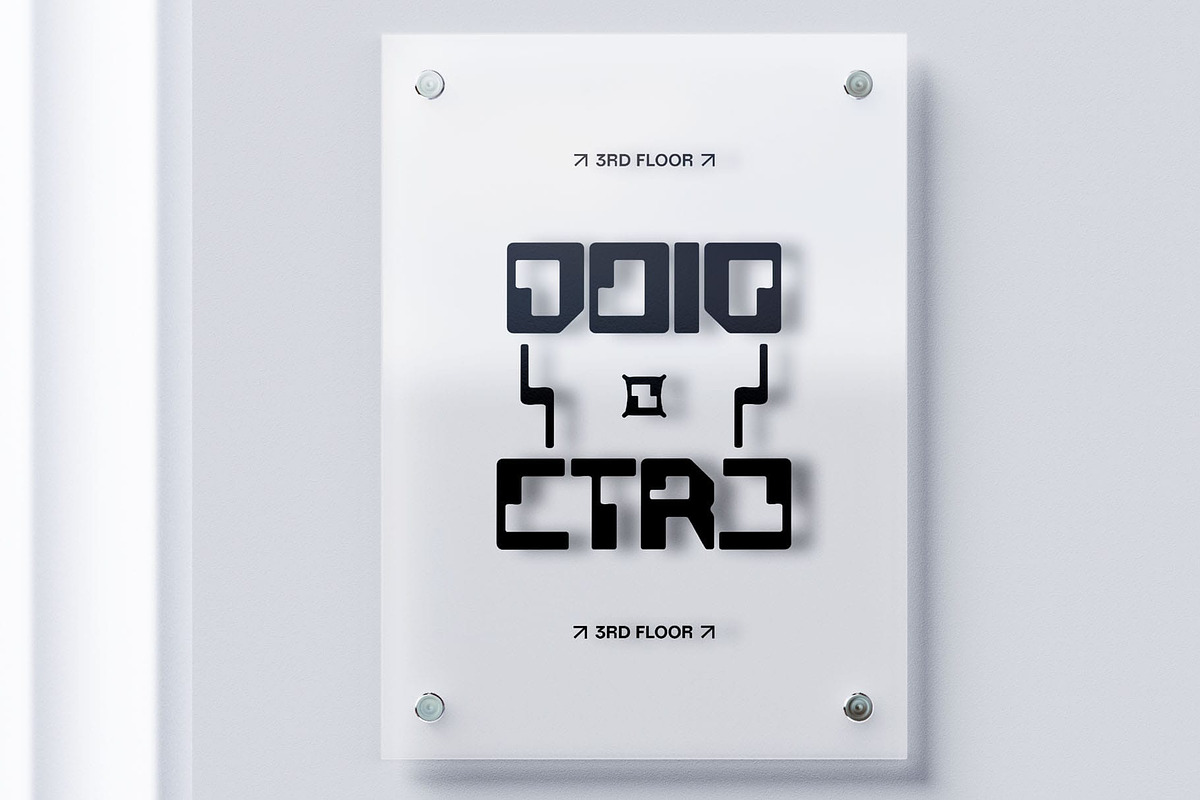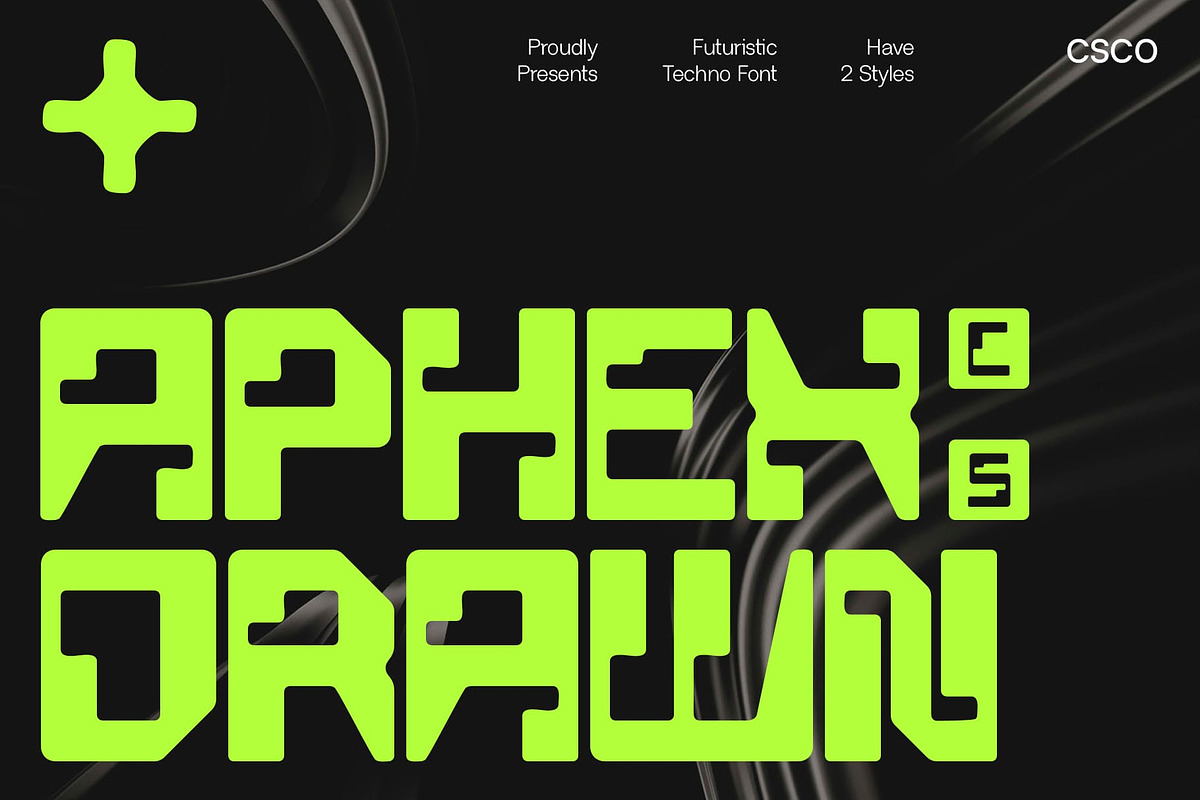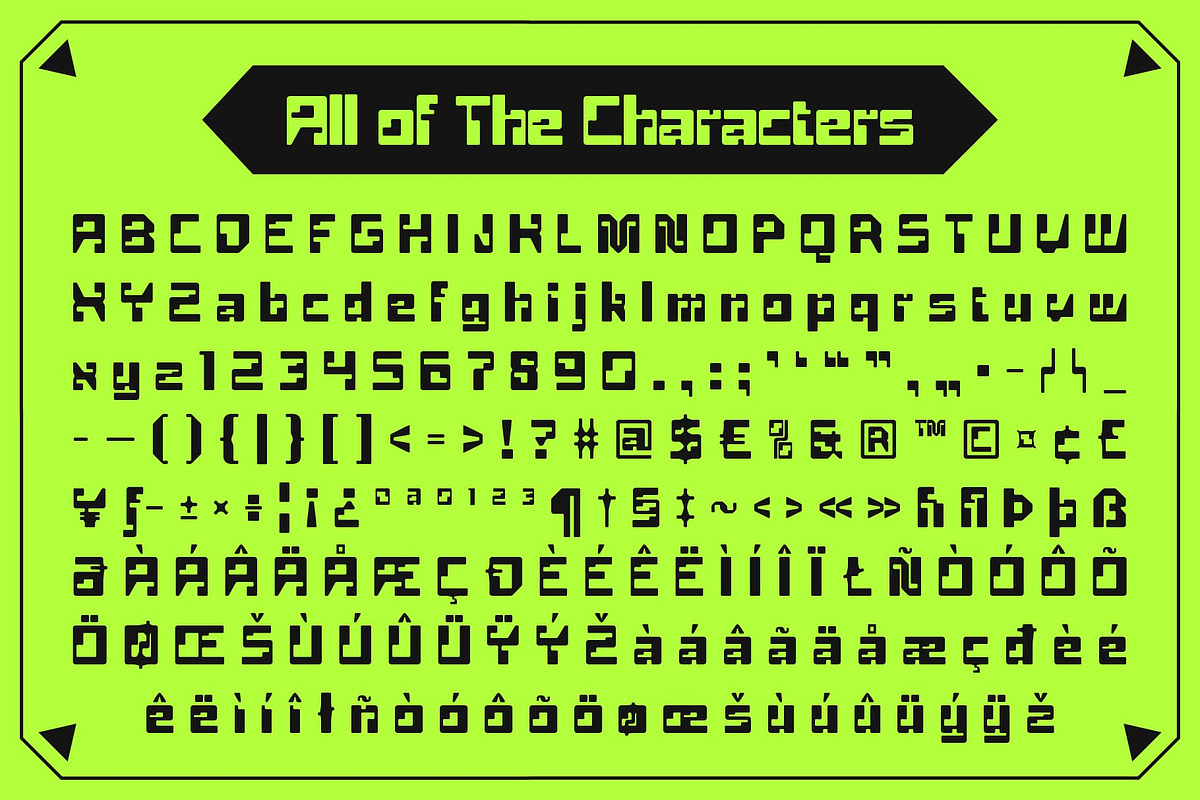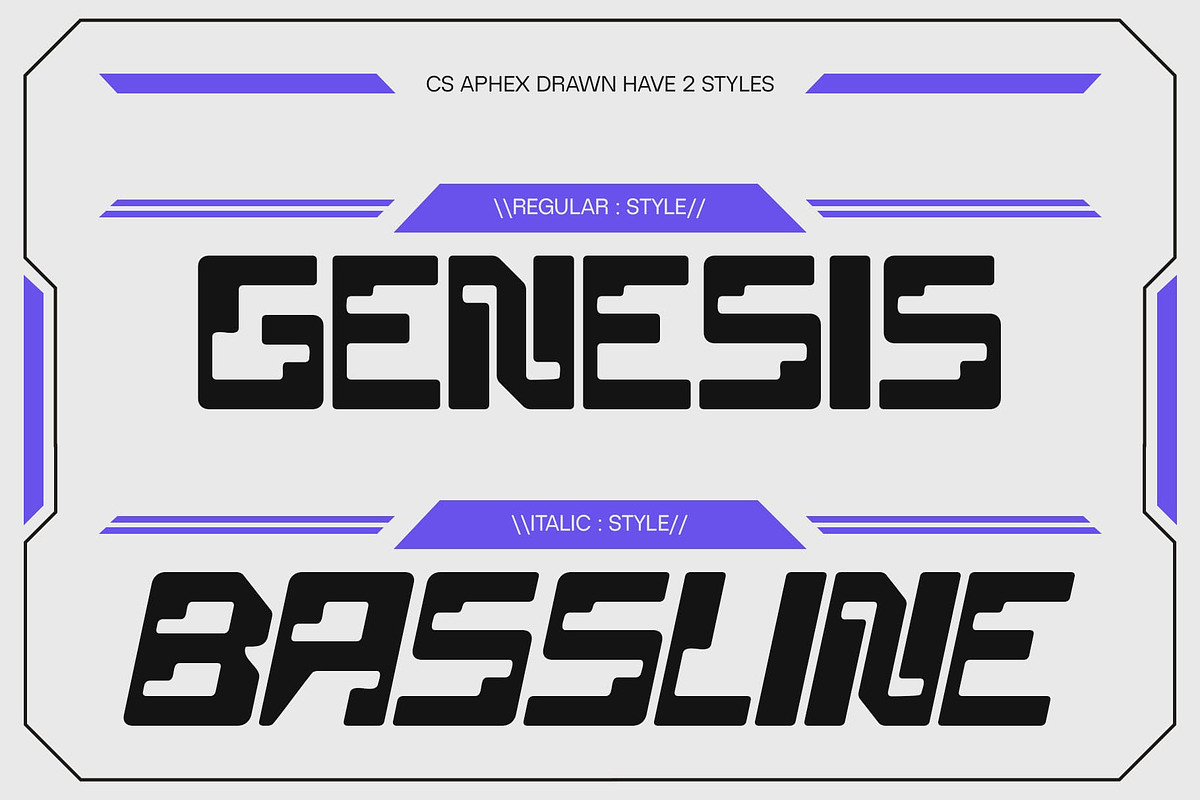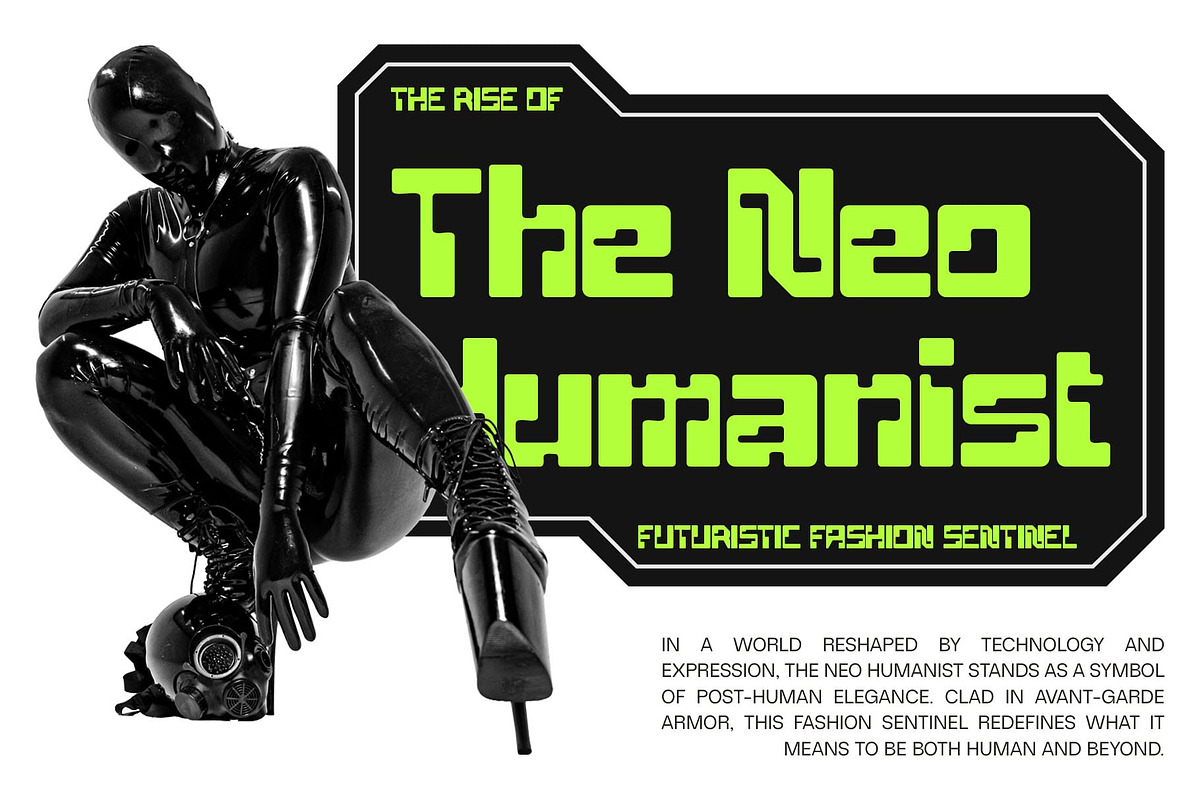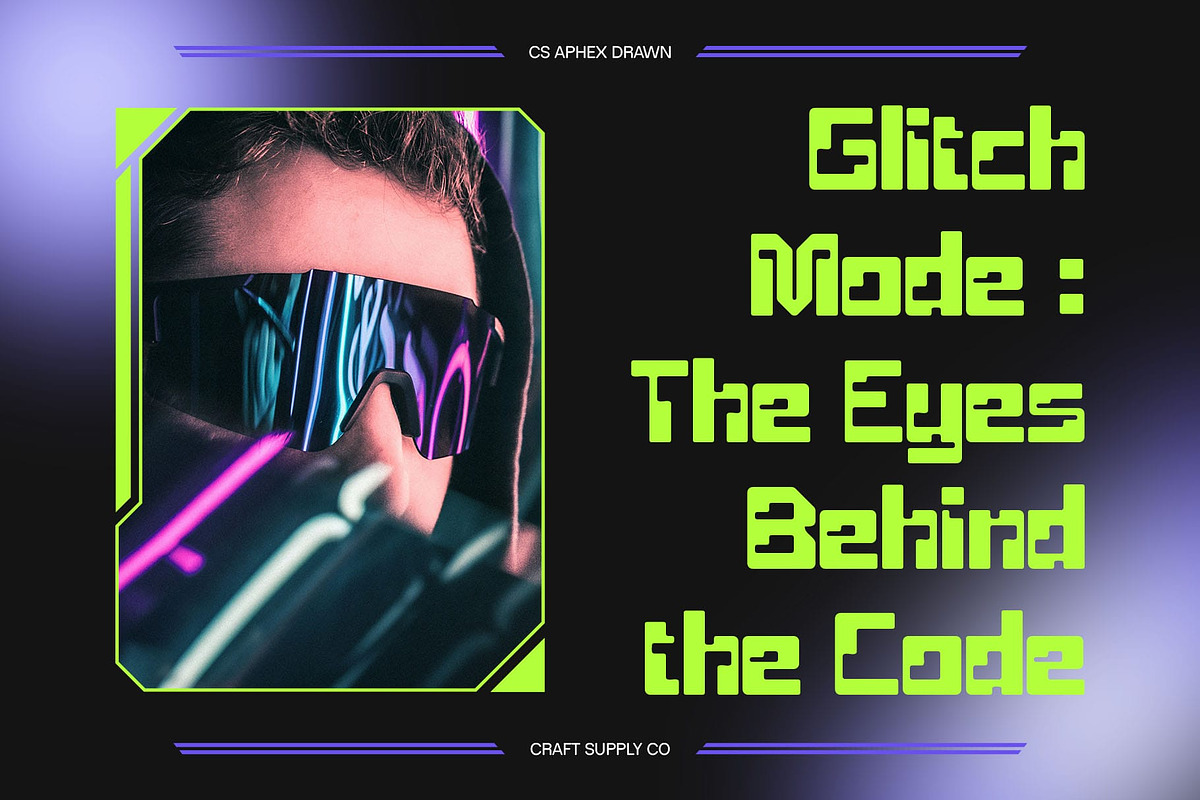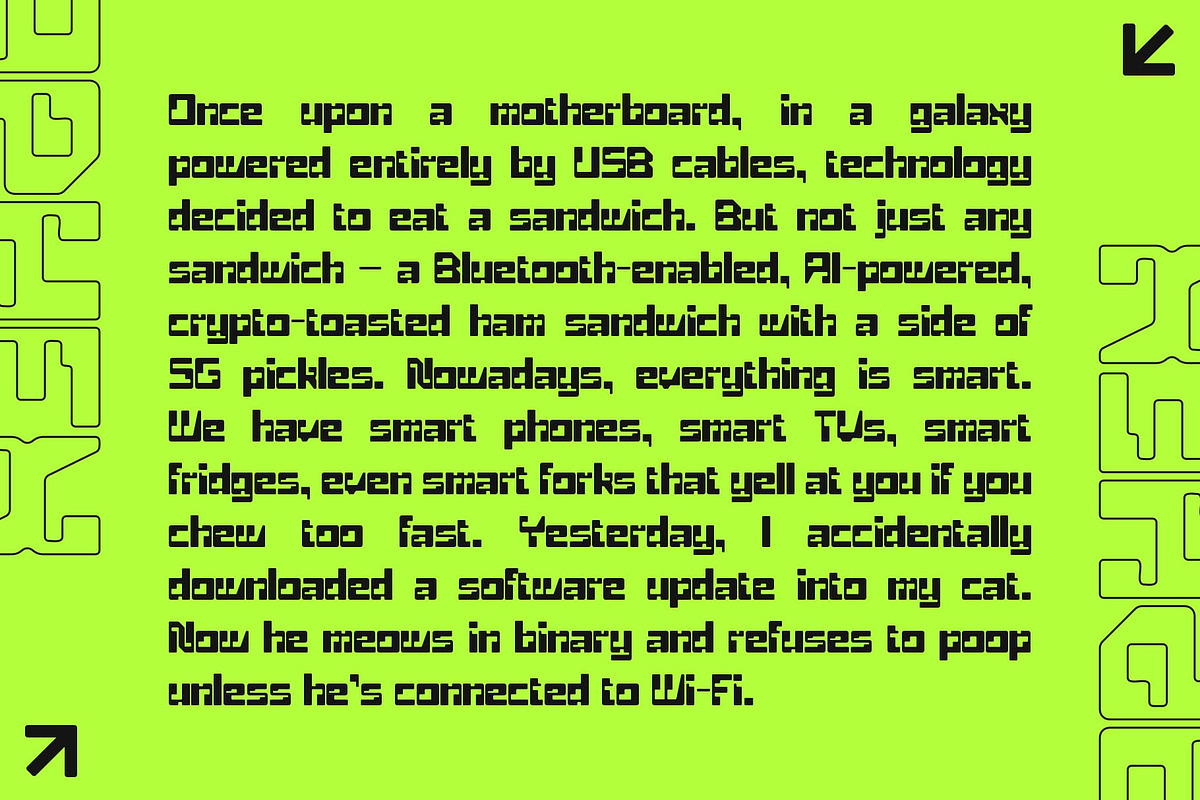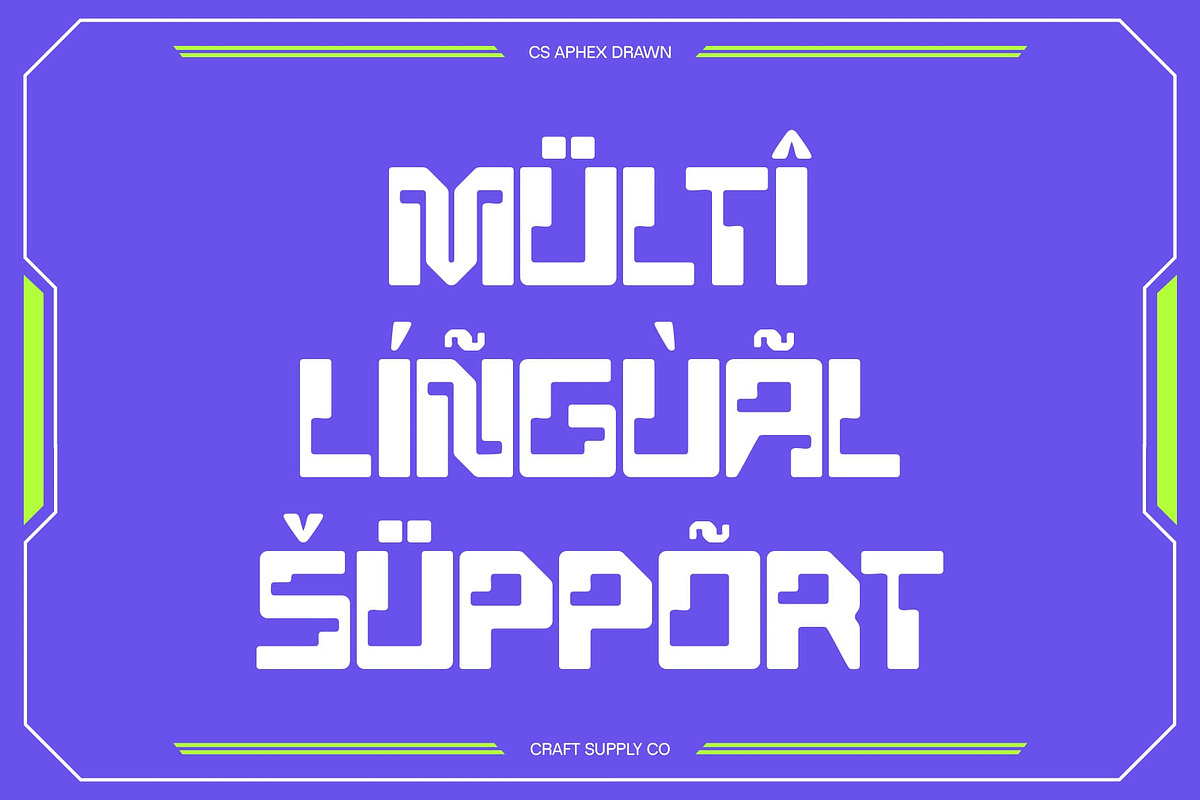
CS Aphex Drawn
CS Aphex Drawn – Where Futurism Meets Organic Expression
Bold Futuristic Forms with a Digital Edge CS Aphex Drawn is a striking modern display font inspired by futuristic aesthetics and techno visual culture. Its bold, angular letterforms are defined by geometric precision and a rigid, digital character that immediately evokes innovation, speed, and technology. Perfectly suited for projects aiming to reflect progress and the future.
Drawn Texture Adds Raw, Humanized Character What sets this handcrafted font apart is its unique drawn effect, introducing a handcrafted, irregular texture to the structured design. This interplay of controlled geometry and raw expression creates visual depth, offering a contrast between machine-like clarity and artistic spontaneity.
A Tension Between Structure and Chaos The fusion of techno form and hand-drawn imperfection presents a compelling tension—ideal for experimental layouts and expressive typographic compositions. It works beautifully in large formats, where the nuances of the texture and form can be fully appreciated. Whether you’re creating glitch art, abstract posters, or immersive digital experiences, this futurism font thrives in the unexpected.
Perfect for Electronic Music, Sci-Fi, and Tech Branding Ideal for genres like electronic music, gaming, futuristic fashion, or sci-fi storytelling, this font injects a distinctive personality into every project. It’s especially effective for branding that needs to appear edgy, innovative, and unapologetically bold—while still feeling authentic and human.
- CS Aphex Drawn Regular
- CS Aphex Drawn Italic